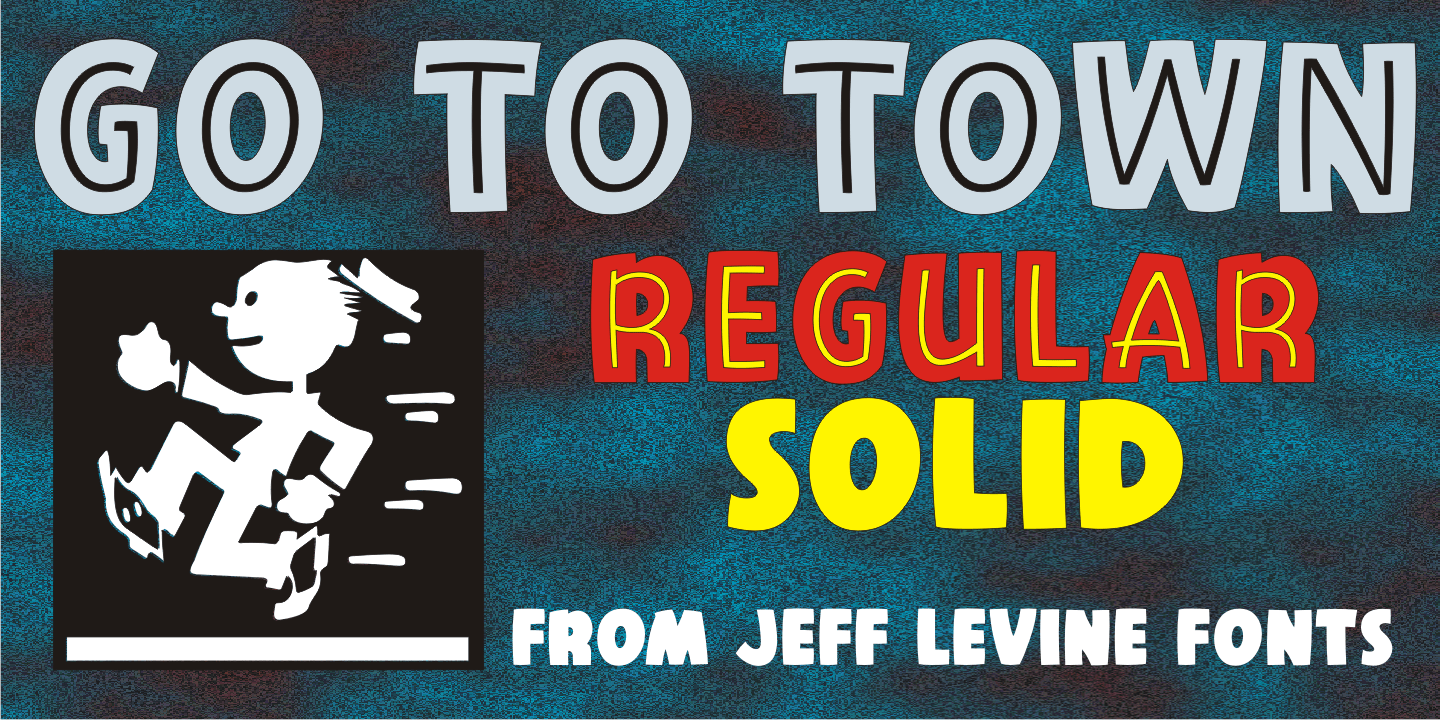
Go to Town
Vintage sheet music for a song from the 1941 animated feature 'Mr. Bug Goes to Town” featured a casual, hand-lettered inline type style on its cover page.
Recreated as the digital font Go to Town JNL, this design is presented in all the imperfect glory of pen and ink lettering. Go to Town JNL is available in the regular inline version as well as a solid version.
A bit about the cartoon:
The project was created by the legendary Fleischer Studios in Miami, Florida (they had relocated from New York City), after they could not obtain the rights to adapt Maurice Maeterlinck's 'The Life of the Bee”.
Beset by the expenses of relocating to Florida, growing production costs on the full-length feature cartoon and other problems; mid-way through the making of 'Mr. Bug Goes to Town” the Fleischer brothers were forced to sell their studio to their distributor (Paramount Pictures) in order to continue in operation.
It was released on Dec. 5, 1941 – just two days before the Japanese attack on Pearl Harbor.
The release [and subsequent re-release by Paramount as 'Hoppity Goes to Town”] was a disappointing failure, earning [as late as 1946] only $241,000 of the initial cost of $713,511 it took to make the film.